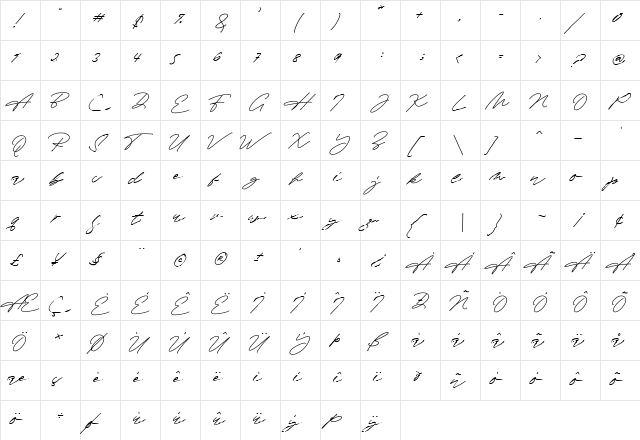
Advisor Personal Use Regular
DesignerMuhammad Naufal Anis
Design Context for Advisor Personal Use Typeface
Advisor Personal Use is a composed and adaptable typeface that performs quietly and consistently across a wide range of design contexts.